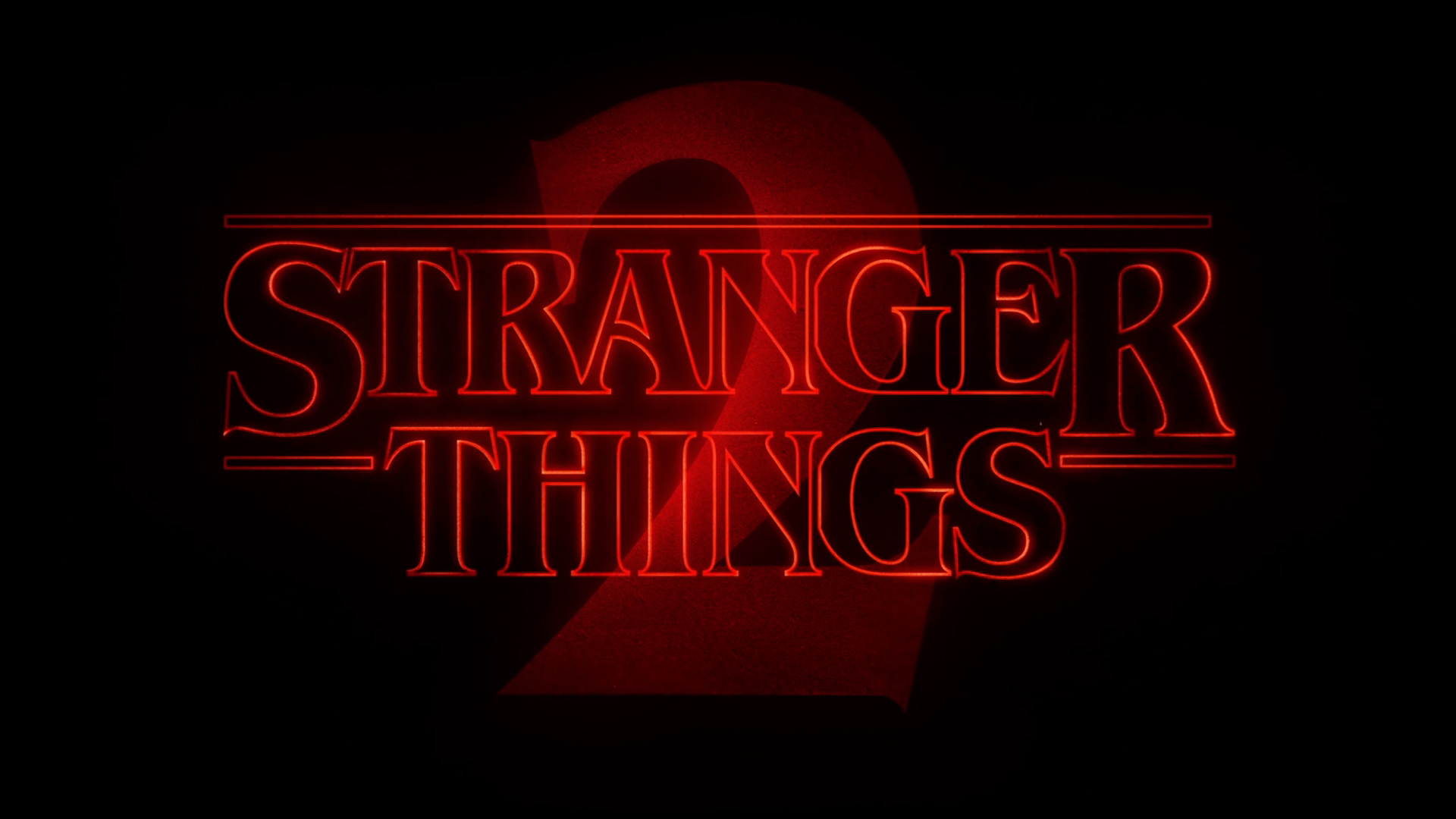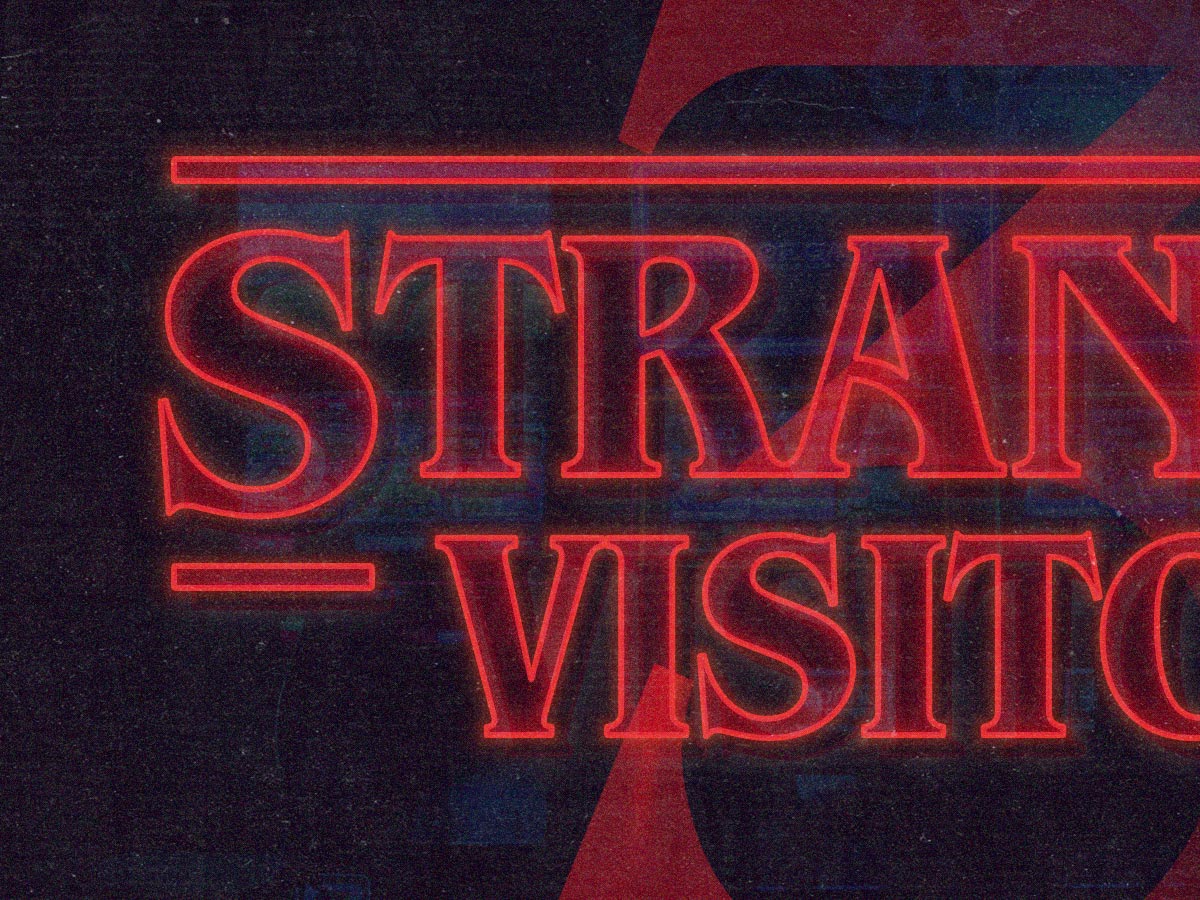
About The Font Stranger Things Regular.
Archive of freely downloadable fonts. Stranger things font free download. And the logo, title of this tv show was designed by a cool font called is benguiat bold.
Yes, this is a famous us tv show program. Stranger things font free download. Stranger things regular is the perfect font for all your fun designs.